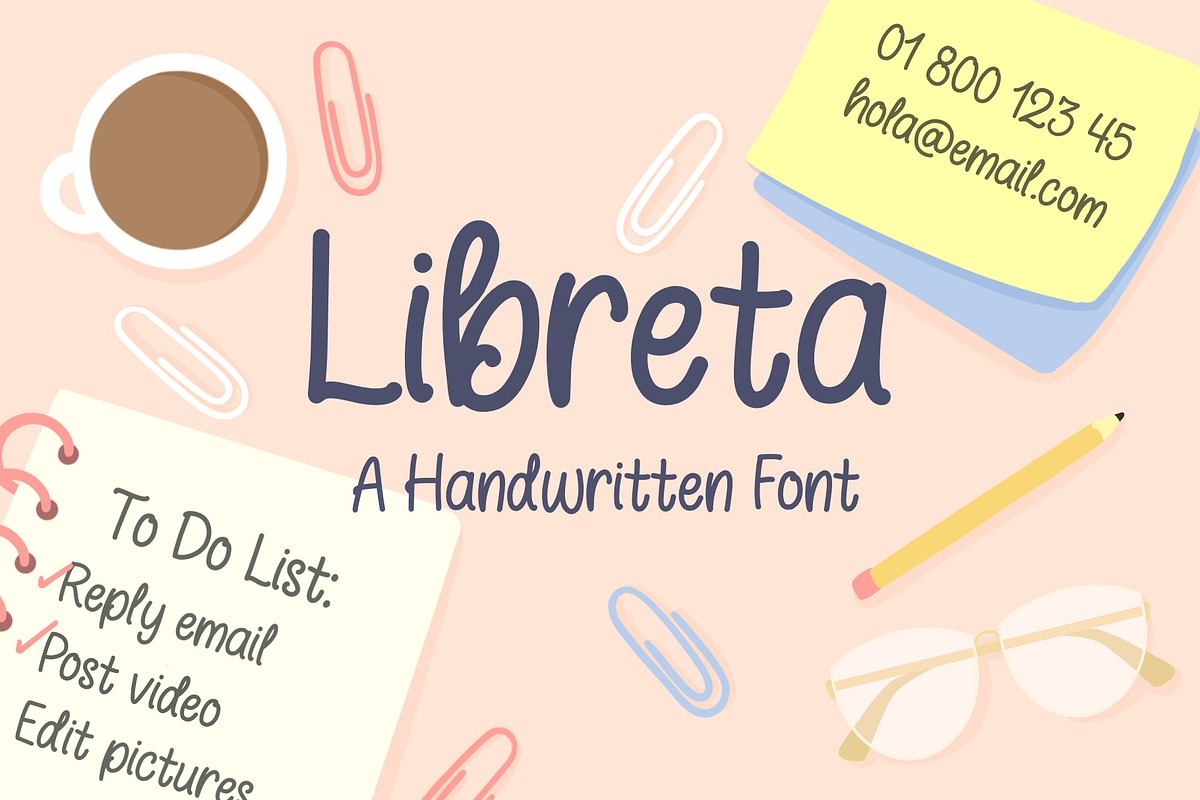
Libreta Handwriting Font Free Download is a casual and authentic typeface that mimics the look and feel of real handwriting. With its smooth strokes and slightly imperfect lines, this font is perfect for personal notes, journal-style graphics, branding with a human touch, classroom materials, and creative social media posts. It’s warm, friendly, and full of personality.
Using the Libreta Handwriting Font Free Download gives your designs a handwritten charm that feels approachable and genuine. Whether you're designing planner pages, inspirational quotes, or a logo that needs a personal vibe, this font brings a natural and creative flow to your text.